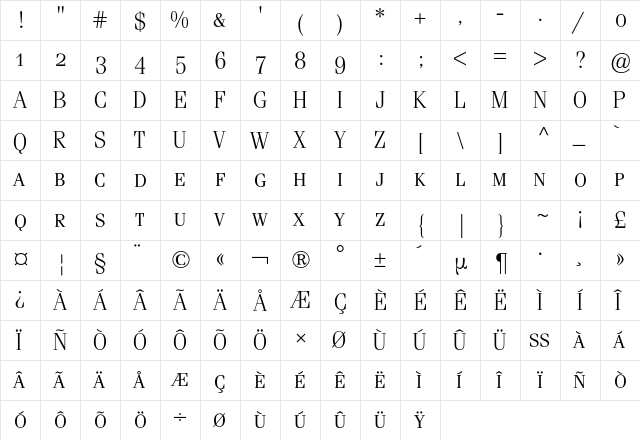
Fenice Expert BQ Regular
Design Context for Fenice Expert BQ Typeface
Fenice Expert BQ is a composed and adaptable typeface that performs quietly and consistently across a wide range of design contexts.